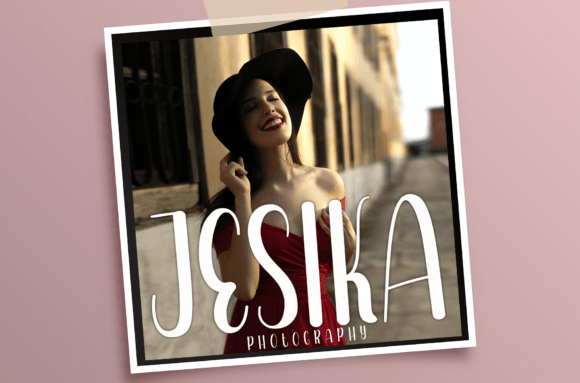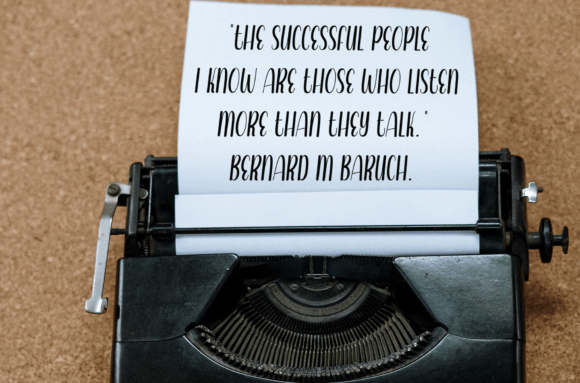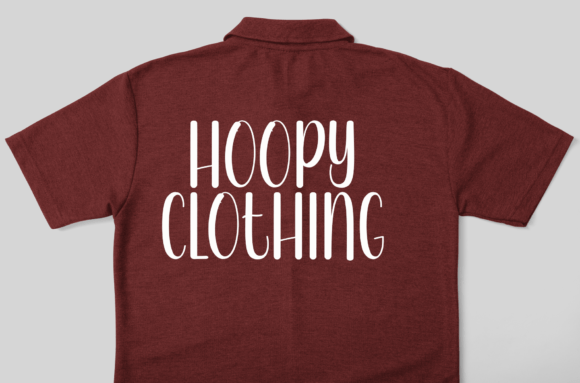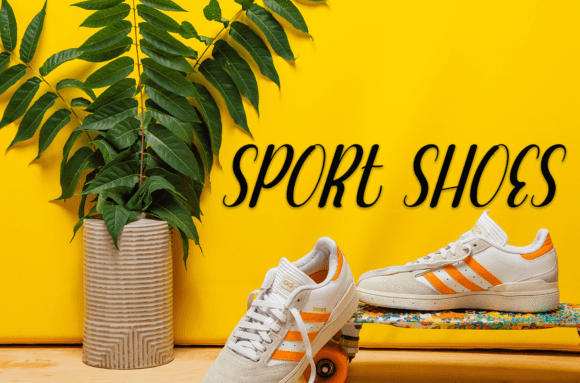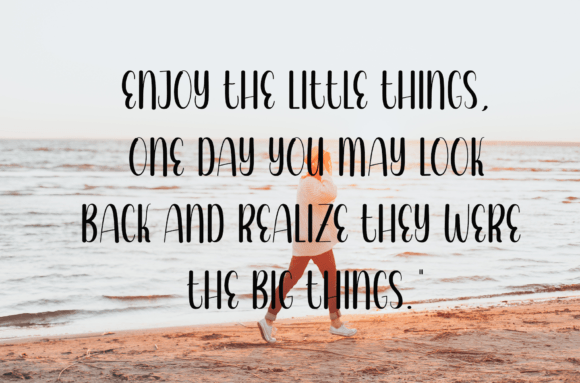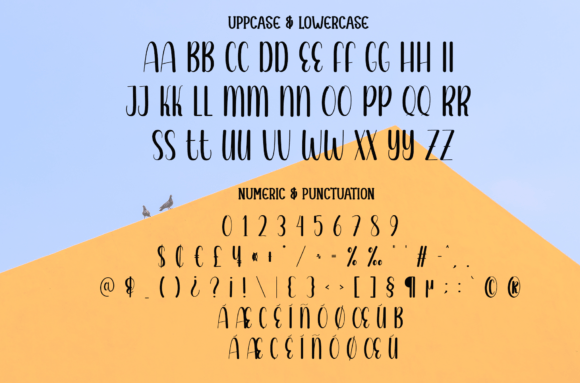
Introduction to Graphick Font
Remember the thrill of brainstorming a new creative project? The excitement of envisioning the perfect design, the ideal color palette, and the perfect typography? For designers, it’s a moment of pure joy, and it’s exactly what makes the search for the right font so crucial. When you stumble upon a font that perfectly captures the essence of your vision, it’s like a match made in heaven.
That’s exactly what we’d like to introduce you to today: the Graphick Font. This delightful handwritten font is a game-changer for any design project that needs a touch of warmth and personality. Whether you’re crafting a wedding invitation, a birthday card, or any other design that requires a unique flair, the Graphick Font is an excellent choice.
Key Features of Graphick Font
- Transparent background for seamless integration with any design
- Supports a wide range of languages and characters
- Resolution-independent, scalable to any size without compromising quality
- Perfect for use in logos, branding, and other visual identity elements
Honest Review: Graphick Font
As a designer, I’m always on the lookout for high-quality design resources that can elevate my creative projects. Recently, I had the chance to explore the Graphick Font, and I must say, it’s been a game-changer for my designs.
Here are some things that work well: ✨
- Unique and stylish design aesthetic that sets my designs apart
- High-resolution font files that ensure crisp and clear typography
- Transparent background option, perfect for creative projects that require a clean and minimalist look
However, I did encounter some limitations: ⚠️
- Limited font styles and weights, which might not be suitable for projects that require a wide range of typography options
- No support for custom font sizes or colors, which can be a bit restrictive for some designers
Overall, I’m impressed with the Graphick Font’s potential to add a touch of sophistication to my designs. While it may have some limitations, I believe it’s a valuable addition to any designer’s toolkit, especially for those working on creative projects that require a high-end look.
Graphick Font: A High-Quality Design Resource
Getting Started with Graphick Font
Graphick Font is a versatile and stylish font perfect for any creative project. With its transparent background and high-quality design, it’s ideal for use in various applications, including graphic design, digital art, and print media.
Tips for Getting the Most Out of Graphick Font
Experiment with different font sizes and styles to achieve the desired effect.
Combine Graphick Font with other design elements to create a visually appealing design.
Use the transparent background feature to create a seamless design experience.
Common Use Cases for Graphick Font
Use Graphick Font for:
Headings and titles in graphic design projects.
Body text in digital art and print media.
Creating a consistent brand identity.
Alternatives to Graphick Font
Open Sans is more versatile than Graphick Font, with a wider range of weights and styles available. It’s perfect for body text and titles in various creative projects.
Comparison to Graphick Font: While both fonts are clean and modern, Open Sans has a more neutral tone, making it suitable for a broader range of design applications.
Q: Does the Graphick Font have a transparent background?
Yes, the Graphick Font features a transparent background, making it easy to use with transparent or colored backgrounds in your design projects. This allows for a seamless integration with your design resource and creative project.
Q: Is the Graphick Font a high-quality font?
Yes, the Graphick Font is a high-quality font designed to provide crisp and clear text output. With its high-resolution design and careful attention to detail, it’s perfect for any design project that requires a professional and polished look.